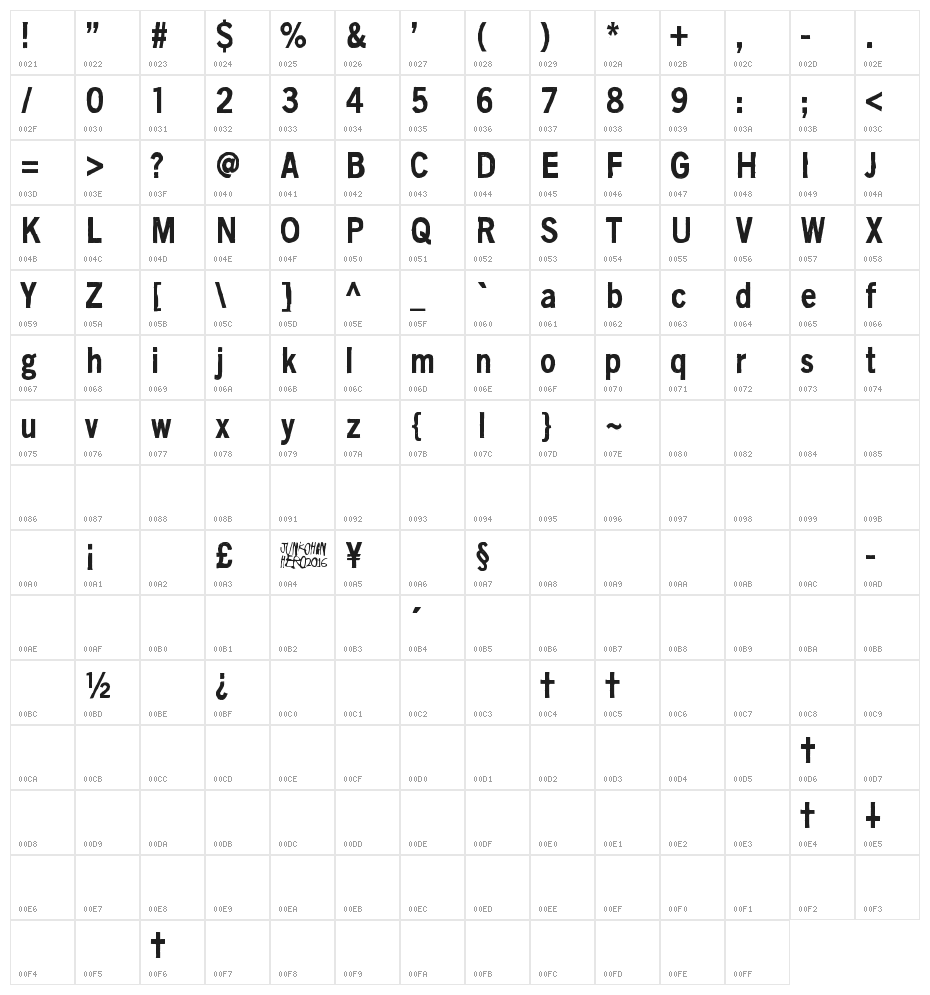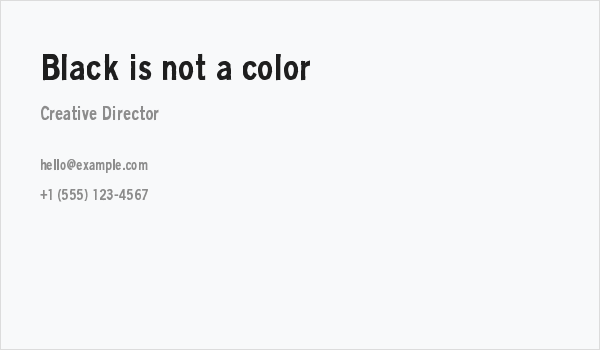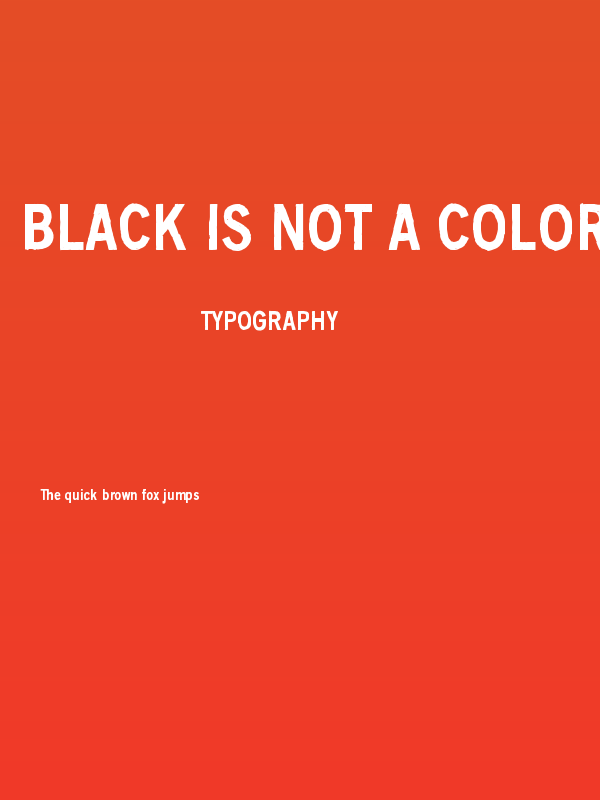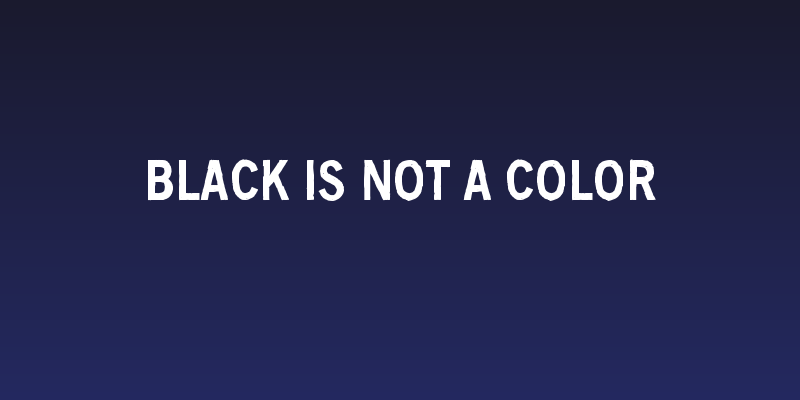
Black is not a color Font
Black is not a color Description
This font features a bold and robust design, characterized by its thick and slightly irregular strokes that give it a hand-crafted appearance. The uppercase and lowercase letters maintain a consistent weight, providing a strong visual impact. The numerals and special characters follow the same bold style, ensuring uniformity across all glyphs. The font's rough edges and slightly distressed look add a vintage and rustic charm, making it ideal for projects that require a touch of authenticity and character.
| Proposed Projects | Ideal for branding, packaging, posters, and any design project that requires a bold, vintage aesthetic. |